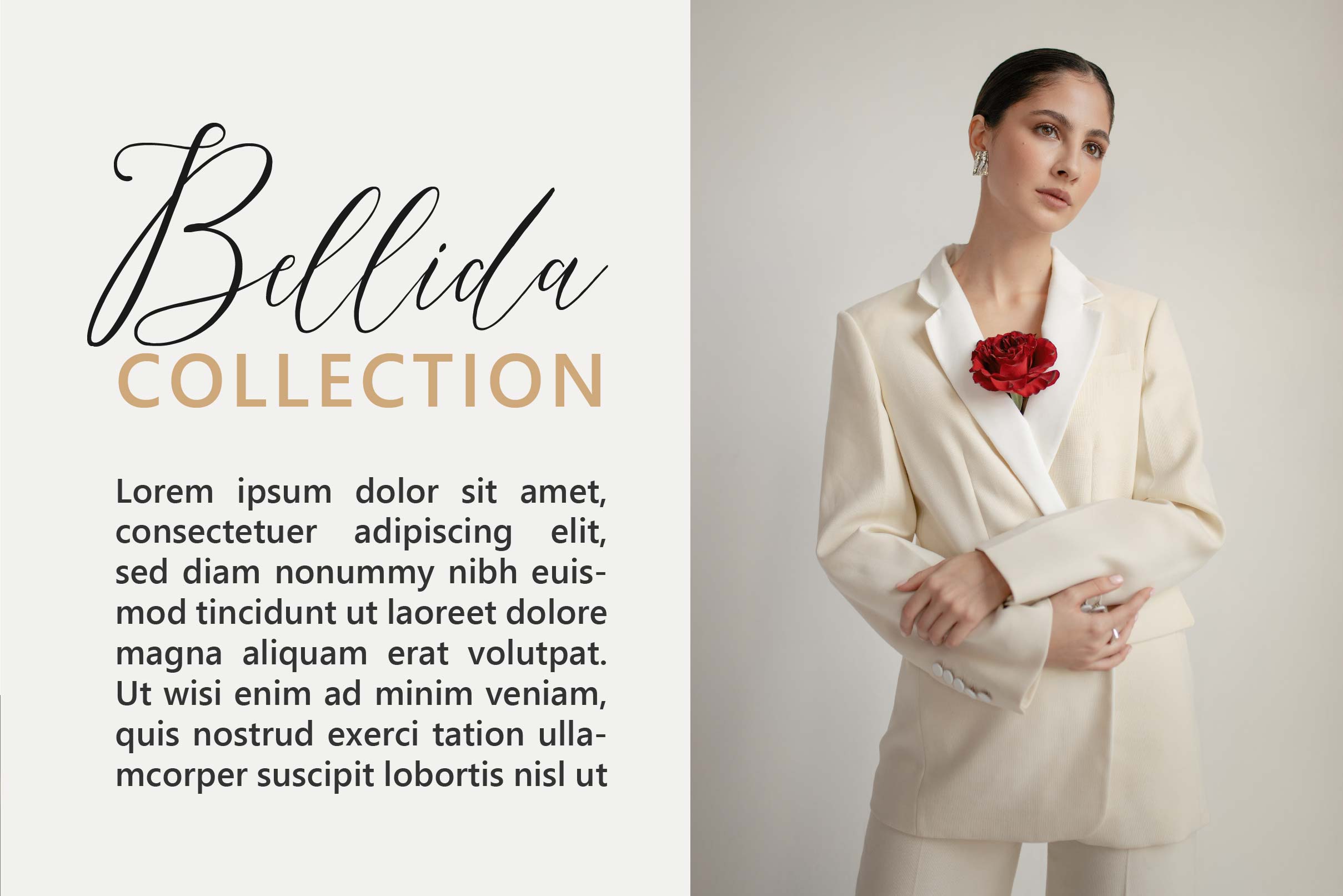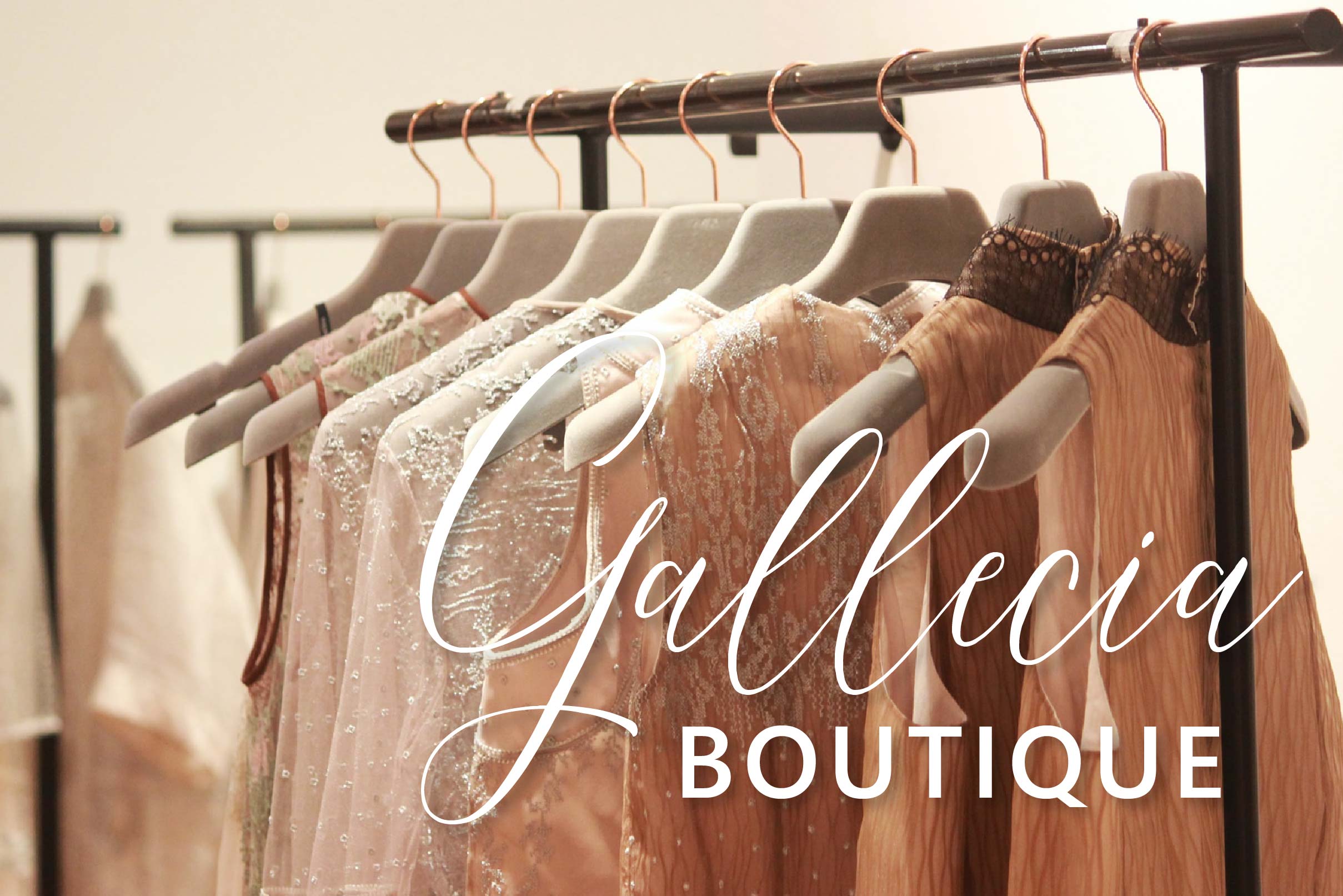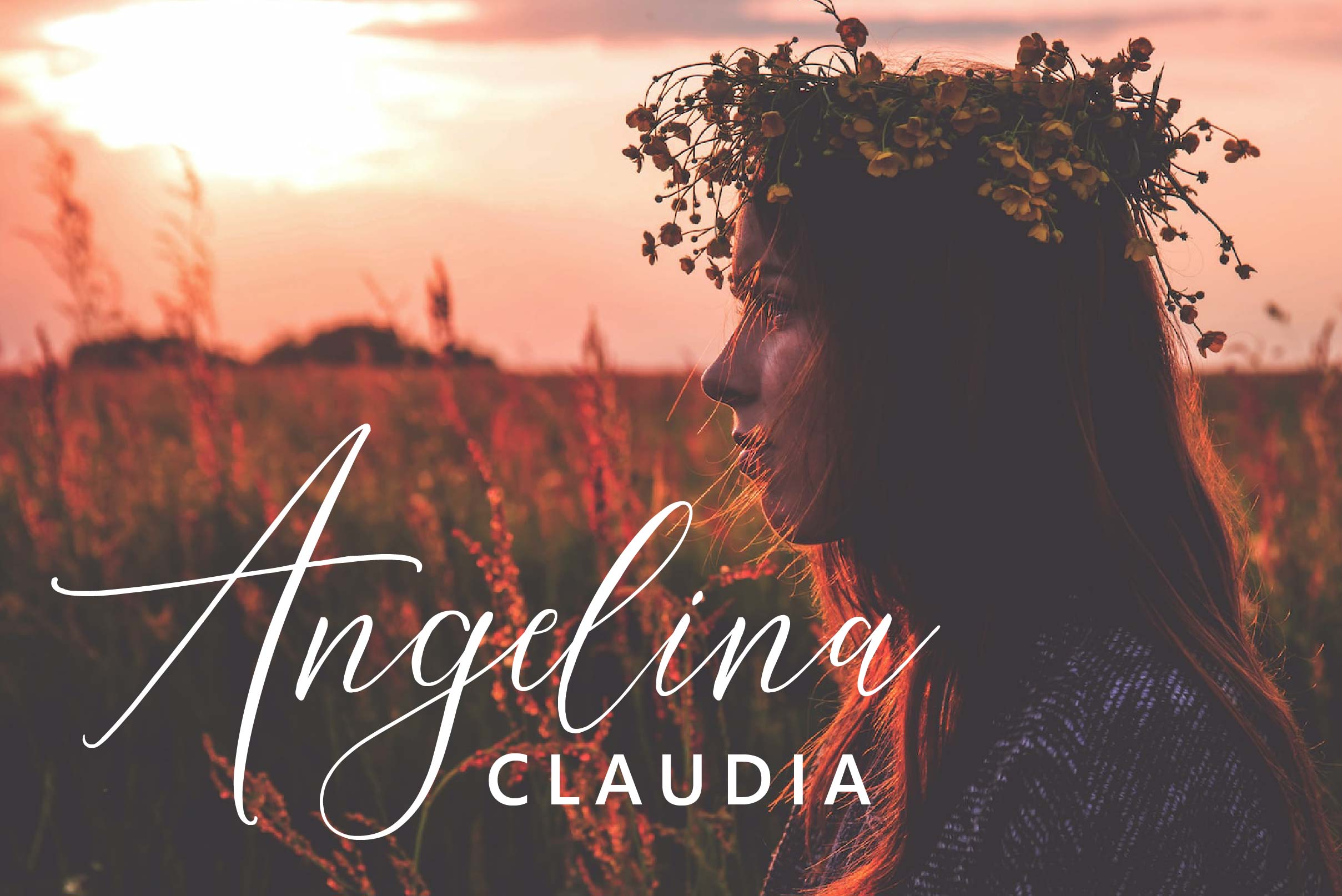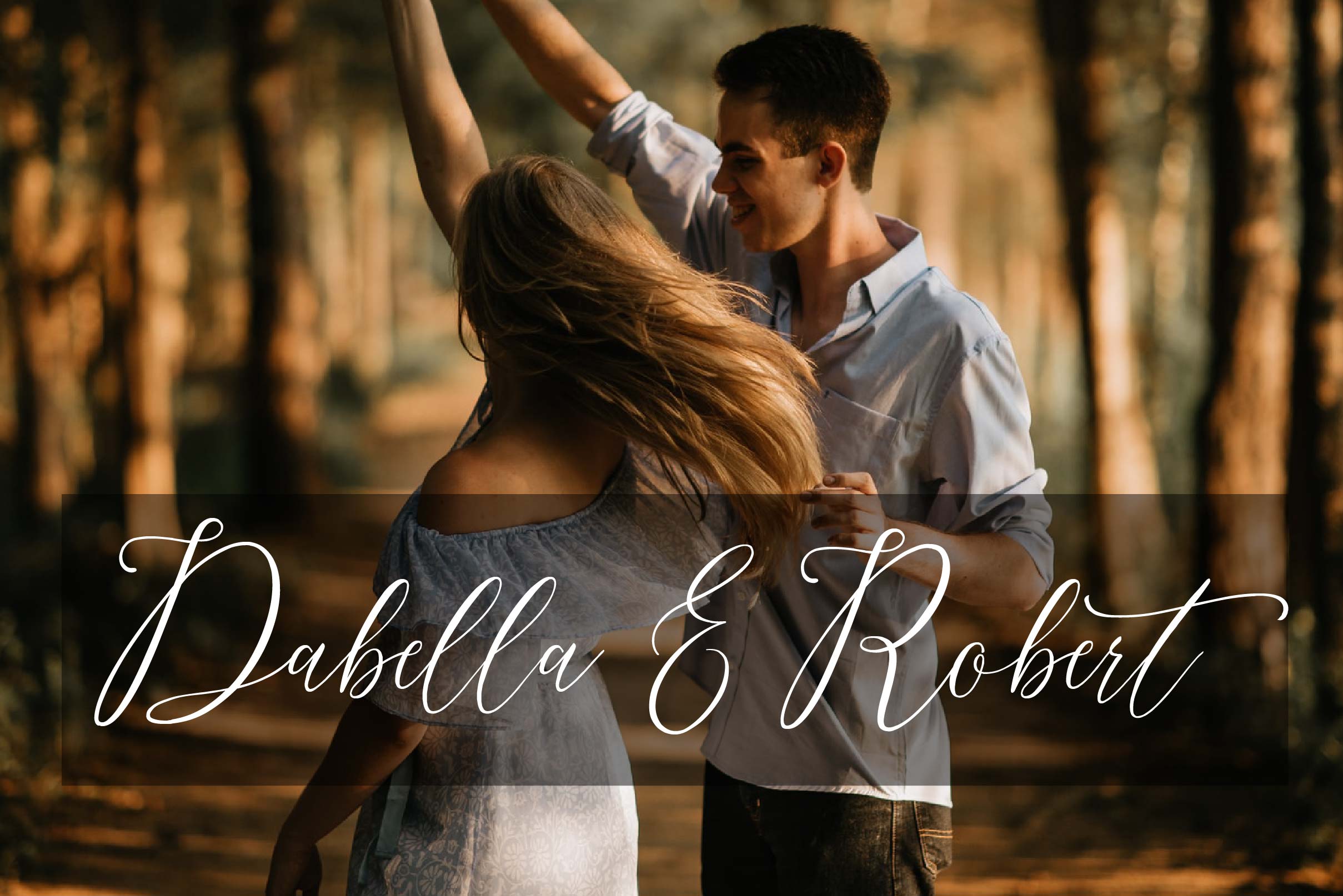
Claudia Font
Claudia Script Font is a handwritten script with a natural & stylish flow. This typeface is perfect for personal branding. Claudia is perfect for branding projects, logos, wedding designs, social media posts, advertisements, product packaging, product designs, label, photography, watermark, invitation, stationery, and any projects that need handwriting taste.
– Uppercase, Lowercase, Numeral & Punctuation
– Alternate Letters, Ligature & Swash/Tail